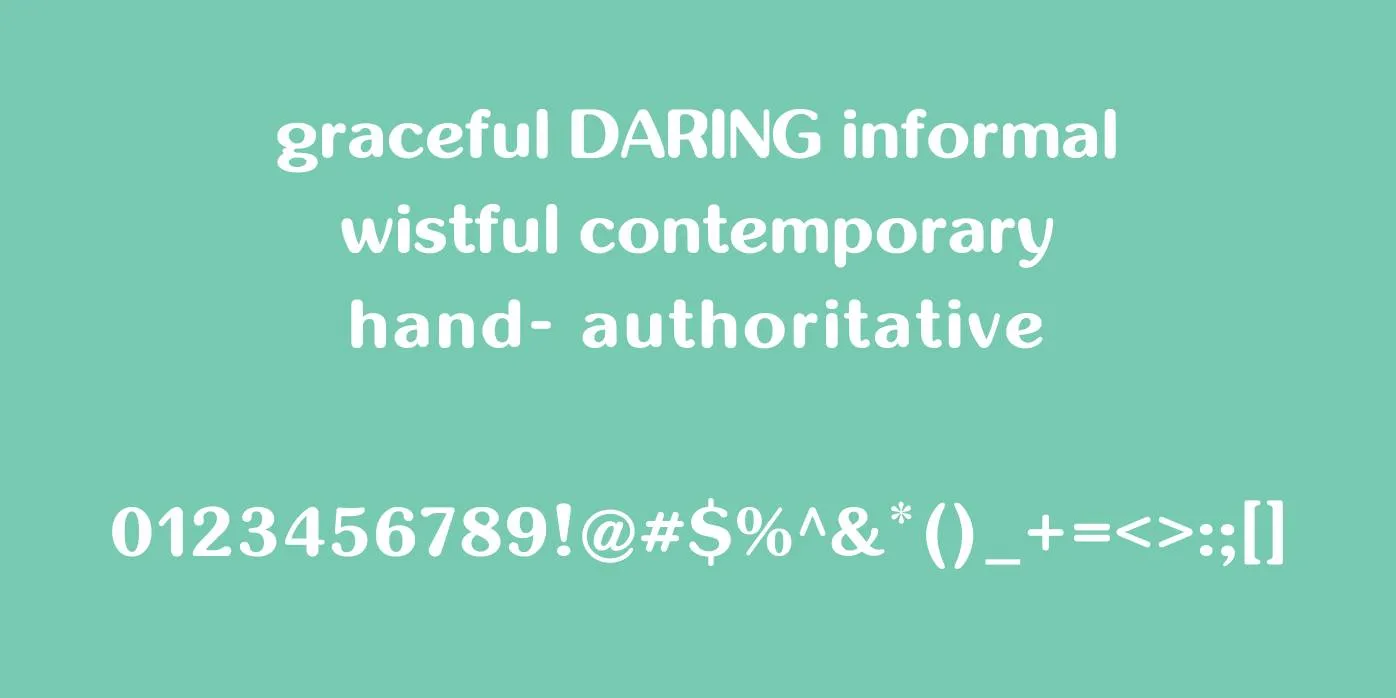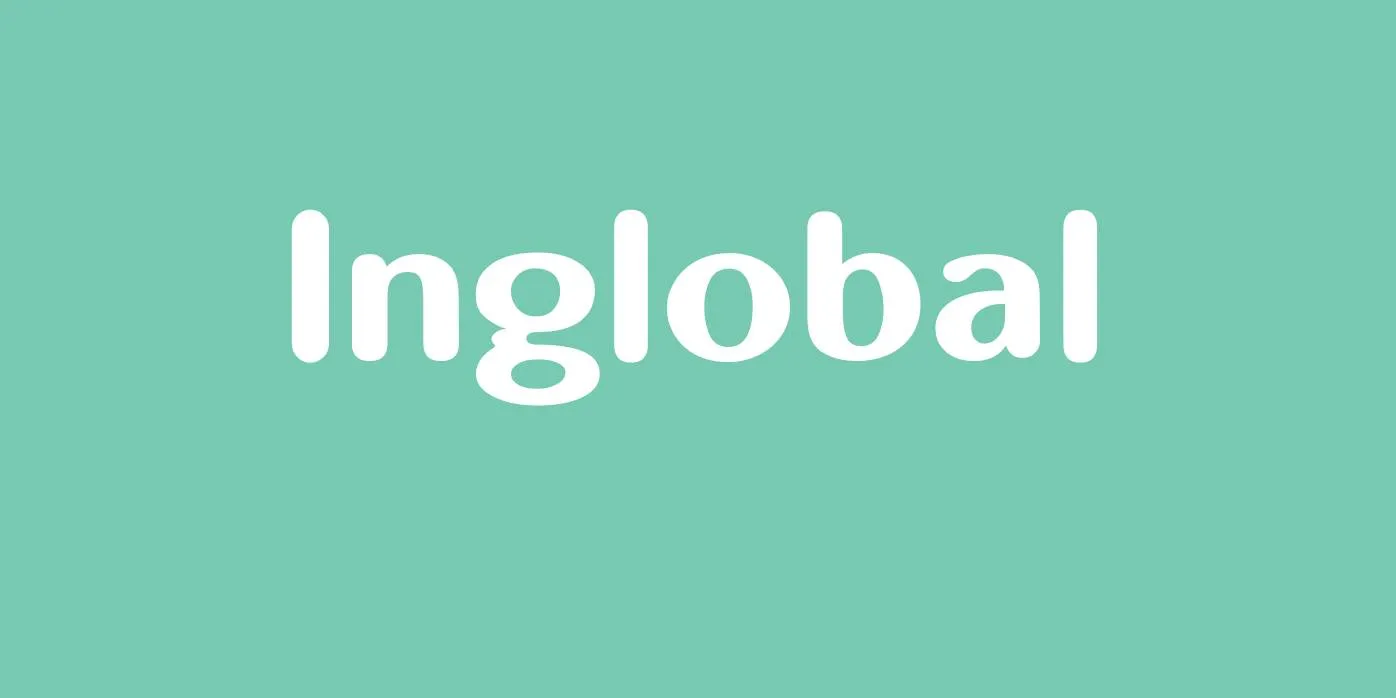
Inglobal Font
You are going to read about the famous basic font. Inglobal Font is the typeface that is categorized under the basic fonts. Andrey Kochetov is the designer of this stunning and awesome typeface. There are fantastic looking 4 styles for this typeface.
These styles are regular, bold, italic, and bold italic. The glyphs for this texture are also amazing. They are 293 in number. The characters of this typeface are bold, classic, and highly readable.
They have mind-blowing visual effects. You can use this font for a lot of purposes. The texture that is fantastic for pairing with this texture is the alloha font. You can also use this typeface with some other textures for pairing.
You will get awesome visual effects with this pair. This is a fantastic pair because of some exceptional similarities between them.